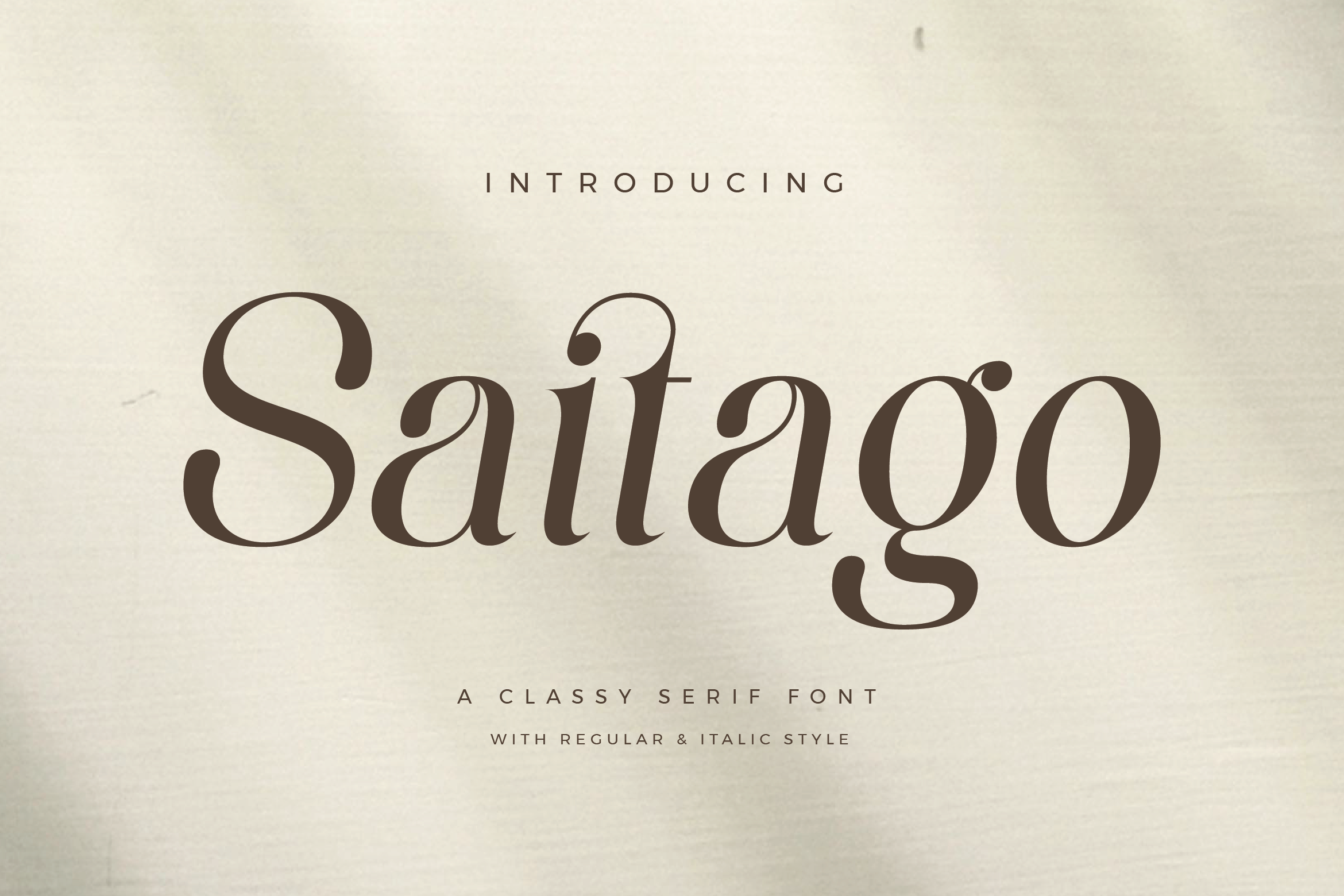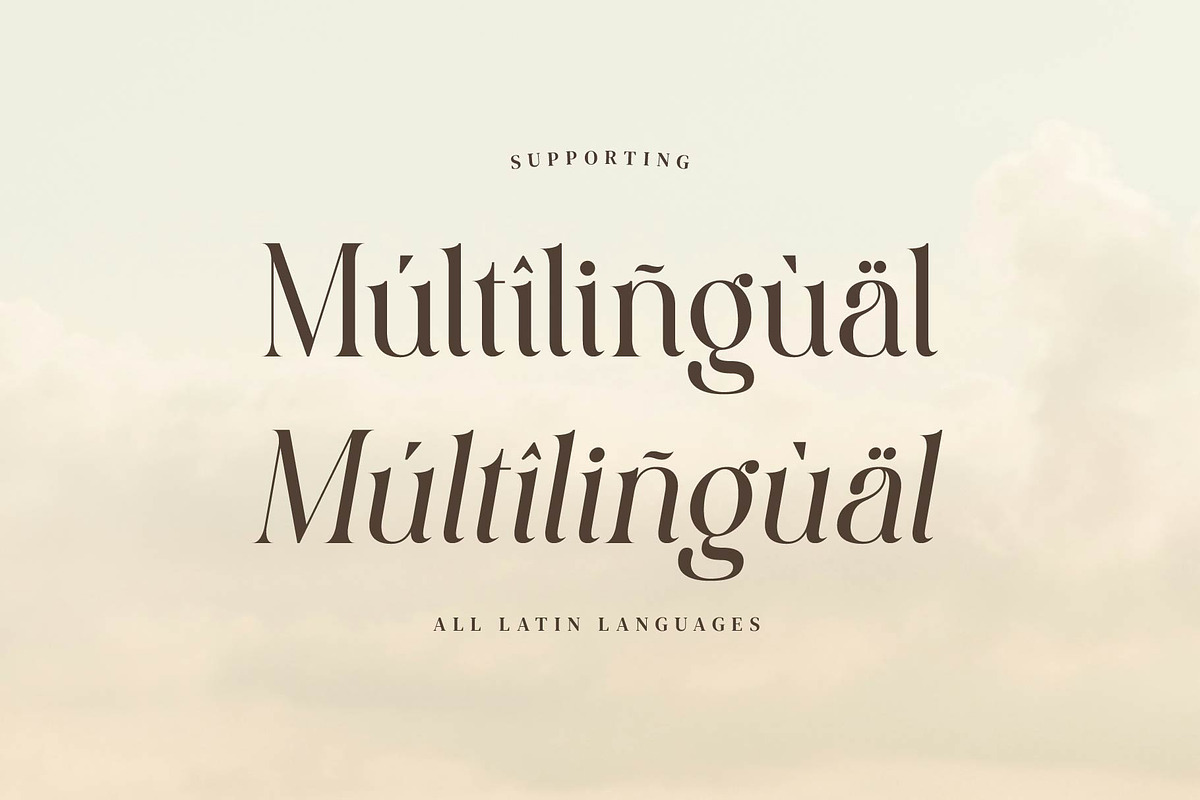
Saitago - Classy Serif Font
Saitago Stylish Ligature Typeface, inspired by the famous minimalist logo perfect for the purposes of designing templates, brochures, videos, advertising branding, logos and more.